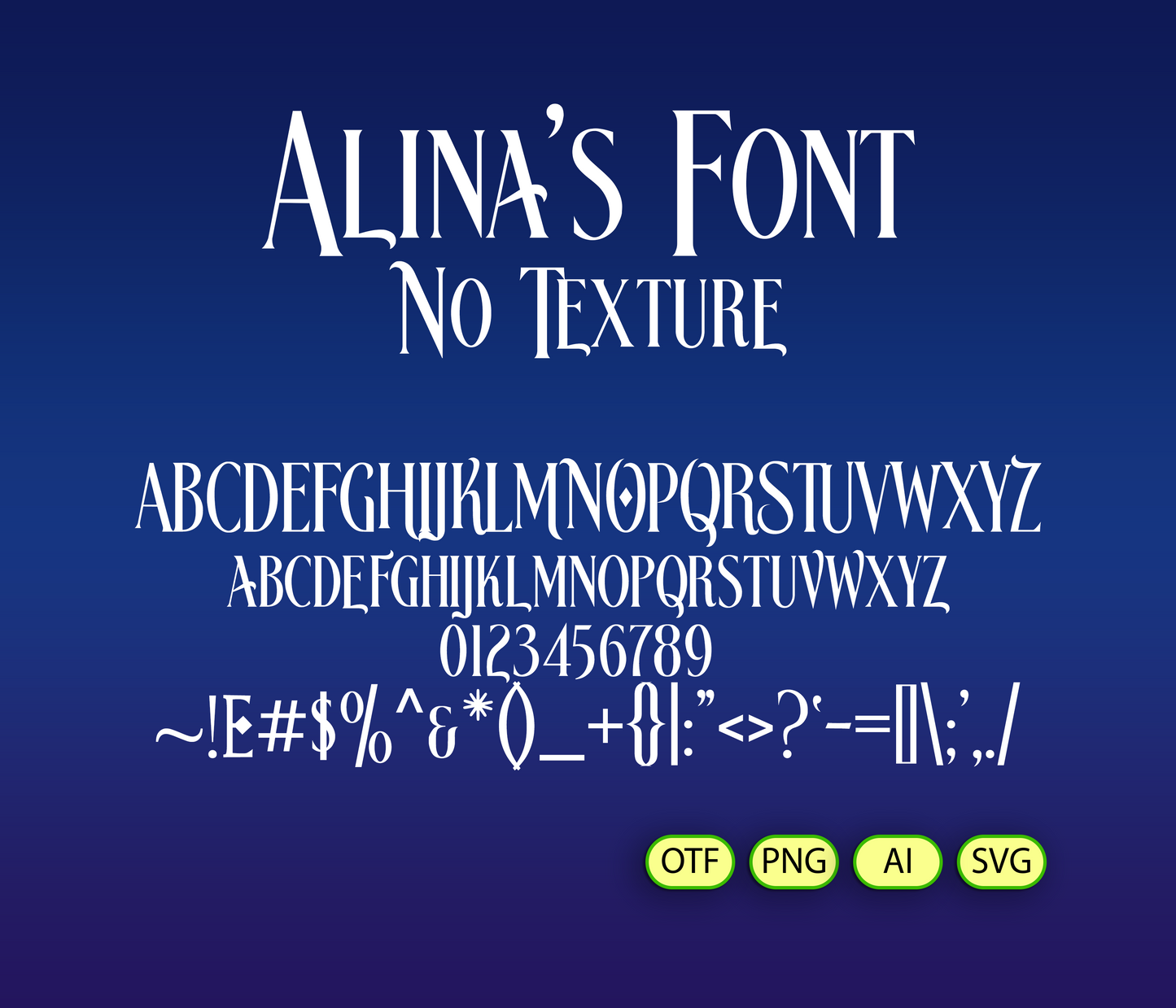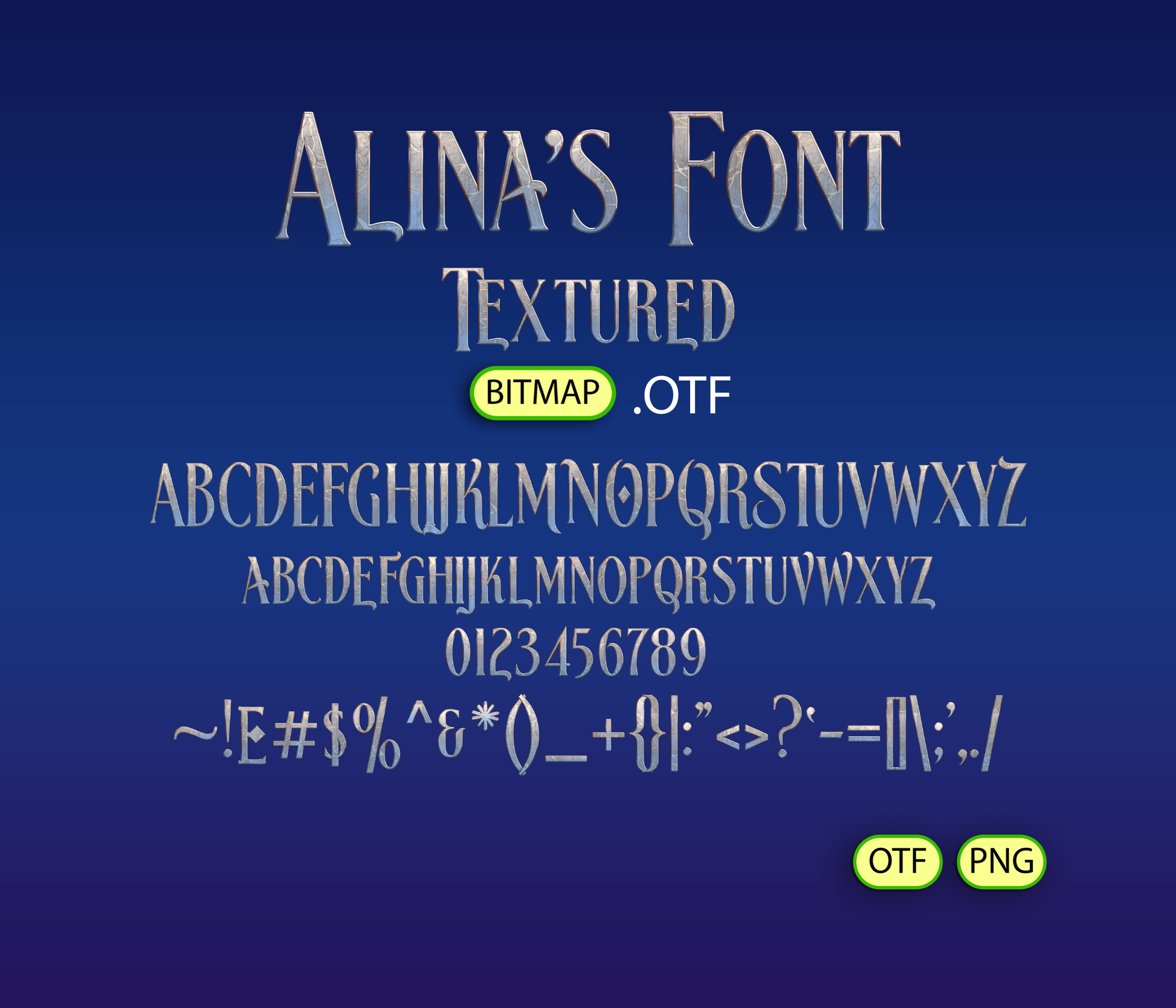
Enchanted Princess Font Textured
Enchanted Princess Textured Cricut Font: Craft Your Fairytale
What Font is Enchanted Princess Font?
Envision a typeface that encapsulates fairytale elegance and timeless beauty. This font has been meticulously crafted, mirroring the storybook aesthetic seen in classic animated films. With an extensive character set that includes alphabets, numbers, and special symbols, it provides a comprehensive toolkit for bringing a touch of enchantment to any project. It's a font that speaks of gentle grace, reflecting a blend of innocence and adventure.
What Can You Do With Enchanted Princess Font?
The Enchanted Princess font offers a realm of versatility and customization for various applications:
- Fairytale-Themed Decor: Ideal for creating magical party decorations and event signage.
- Storybook Illustrations: Enhance the charm of children's books and fairy tale illustrations.
- Themed Event Invitations: Craft invitations that evoke the elegance of a princess's world.
- Custom Apparel: Design enchanting clothing inspired by classic fairytale characters.
- Educational Materials: Use in classroom resources to captivate young minds.
- Brand Identity: Give a touch of classic fairy tale charm to your brand's visuals.
- Digital Content: Stand out in social media with storybook-inspired designs.
- Personalized Stationery: Create stationery that channels timeless beauty.
- Home Decor: Design wall art and items that embody the spirit of the enchanted forest.
- Creative Projects: Let your imagination run wild in crafting fairytale-themed artwork.
- Textured and FREE Non-Textured Variants: Choose between a fairy-tale textured style or a sleek, non-textured version for more versatile applications.
- Extensive Character Set: Offers a wide range of characters for comprehensive design possibilities.
The Enchanted Princess font is more than just a typeface; it's a gateway to a world of fairy tales and enchantment.